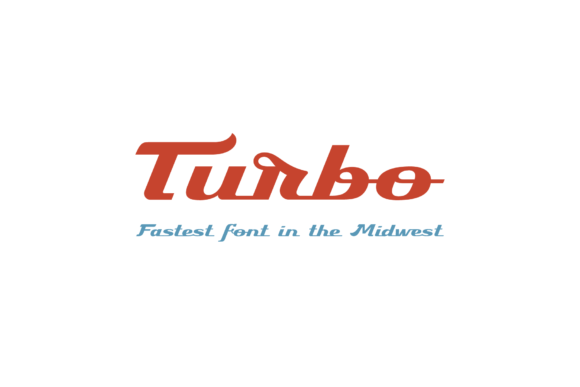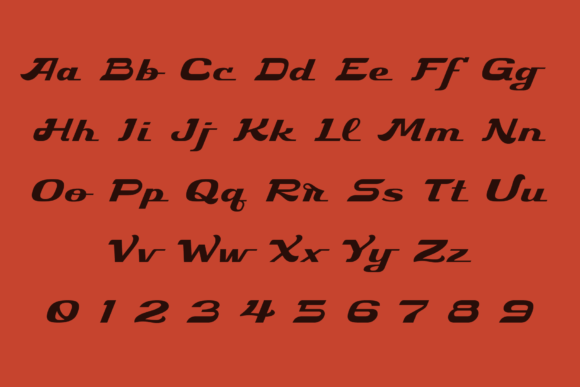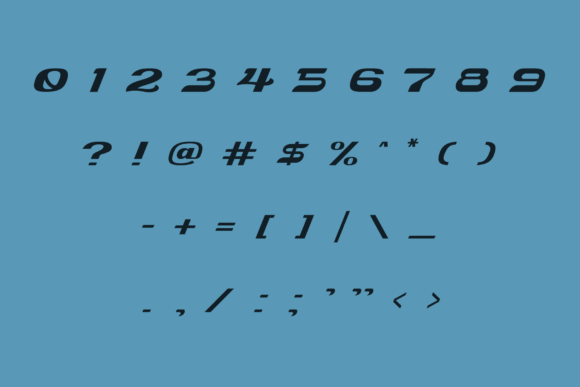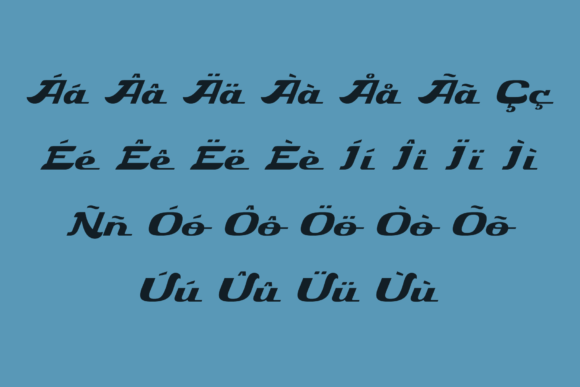
About Turbo Font
Turbo is a sleek and stylish display font, inspired by vintage car script lettering. This font is ideal for automotive projects, but is not limited to them. It can be used in a multitude of designs and genres. Turbo is PUA encoded which means you can access all glyphs and swashes with ease!